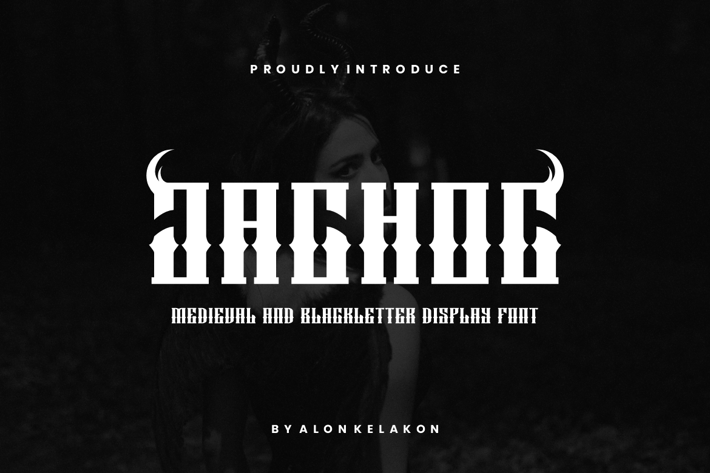
Jachoc Medieval and Black letter Font
Jachoc Medieval and Black letter Font Font is unique . Ready to use for your design like labeling, movie sceen, poster, movie title, gigs, album covers, logos, and much more.